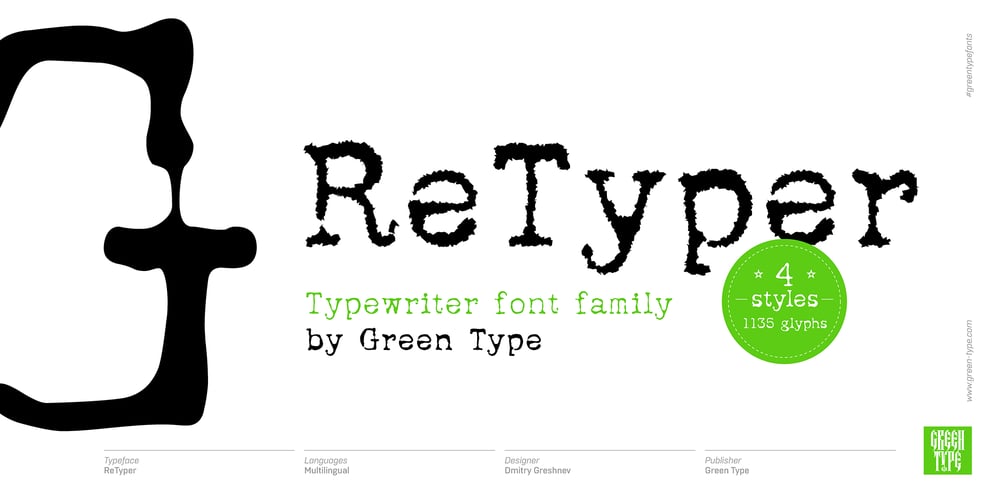
ReTyper Font Family was designed by Dmitry Greshnev and published by Green Type. ReTyper contains 4 styles and family package options. ReTyper is a typewriter font. ReTyper is a family of decorative fonts designed aspecially to make your texts look like authentic typewritten text. Designed for use in advertising, branding, packaging. It is also suitable for use in online activities. ReTyper is also great for your personal purposes, like romantic letters, poetry writing, and making vintage vibes.ReTyper contains Latin, Cyrillic and Greek glyphs. There is also a crossed out stylistic set.